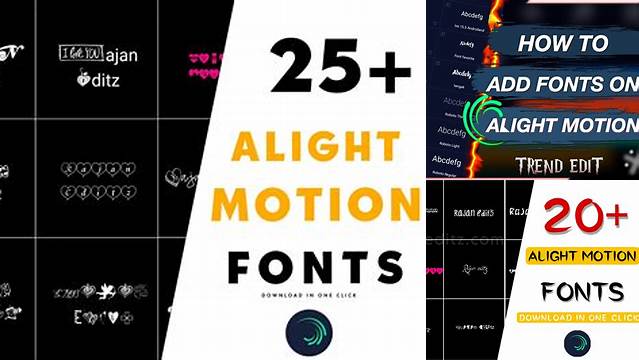
Alight Motion: Master Fonts & Text Editing Like A Pro
Let's dive into the world of Alight Motion, guys! If you're looking to up your video editing game, especially when it comes to text and fonts, you've come to the right place. Alight Motion is a powerhouse for mobile motion graphics, and mastering its font and text editing features is key to creating stunning visuals. So, buckle up, and let’s get started!
1. Understanding the Alight Motion Interface for Text
Alright, first things first. You gotta know your way around the Alight Motion interface, especially the text editing tools. When you open Alight Motion and start a new project, adding text is super simple. Just tap the '+' icon, and select 'Text.' This drops a default text layer onto your composition. Now, the real magic happens when you tap on that text layer. You'll see a bunch of options pop up, like 'Edit Text,' 'Font,' 'Size,' 'Color,' and more. Familiarize yourself with these options. The 'Edit Text' option lets you, well, edit the actual text! The 'Font' option is where you choose your typeface, 'Size' adjusts the text size, and 'Color' changes the text color. Spend some time playing around with these basic settings to get a feel for how they work. Also, pay attention to the 'Move & Transform' options. These allow you to position, rotate, and scale your text layer within your composition. Experiment with different placements and sizes to see what looks best. Don't be afraid to try new things and push the boundaries of your creativity. Understanding this interface is the first step to becoming a text editing pro in Alight Motion!
2. Importing Custom Fonts into Alight Motion
3. Mastering Text Animation in Alight Motion
Now, let's talk about making your text move! Text animation is what brings your words to life in Alight Motion. There are countless ways to animate text, from simple fades and slides to complex character-by-character animations. The key to effective text animation is using keyframes. Keyframes mark specific points in time where you want your text's properties to change. For example, you could set a keyframe at the beginning of your animation with the text off-screen, and then another keyframe a few seconds later with the text in its final position. Alight Motion will then automatically interpolate the animation between those two keyframes, creating a smooth movement. Experiment with different properties like position, rotation, scale, and opacity to create a wide variety of animations. Don't be afraid to get creative and try new things. You can also use easing functions to control the speed and acceleration of your animations. Easing functions can make your animations look more natural and polished. Some popular easing functions include 'Ease In,' 'Ease Out,' and 'Ease In-Out.' Mastering text animation takes practice, but with a little experimentation, you'll be creating stunning animated text effects in no time!
4. Advanced Text Effects: Gradients and Strokes
Ready to take your text to the next level? Let's explore some advanced text effects like gradients and strokes! Gradients add a splash of color and depth to your text, while strokes can help your text stand out from the background. To add a gradient to your text, go to the 'Color & Fill' options in the text editing panel. Instead of choosing a solid color, select the 'Gradient' option. You can then choose from a variety of pre-set gradients or create your own custom gradient. Experiment with different colors and gradient angles to achieve the perfect look. Strokes, also known as outlines, can be added to your text to make it more visible against busy backgrounds. To add a stroke, go to the 'Border & Shadow' options in the text editing panel. Adjust the size and color of the stroke to your liking. You can also choose from different stroke styles, such as solid, dashed, or dotted. Combining gradients and strokes can create some really eye-catching text effects. For example, you could use a subtle gradient with a bold stroke to create a modern and professional look. Or, you could use a vibrant gradient with a thin stroke to create a more playful and energetic look. The possibilities are endless! So, go ahead and experiment with these advanced text effects and see what you can create!
5. Kerning and Leading Adjustments in Alight Motion
Okay, let's talk about the finer details of typography: kerning and leading. Kerning refers to the space between individual letters, while leading refers to the space between lines of text. Adjusting these settings can greatly improve the readability and visual appeal of your text. In Alight Motion, you can adjust kerning and leading in the text editing panel. Look for the 'Spacing' options. Here, you'll find sliders for adjusting both kerning and leading. Kerning is especially important for fonts with unusual letter shapes or spacing. If the letters look too close together or too far apart, adjusting the kerning can help to even things out. Leading is important for multi-line text. If the lines of text are too close together, they can be difficult to read. Increasing the leading can create more space between the lines, making the text more readable. Conversely, if the lines of text are too far apart, decreasing the leading can create a more cohesive look. Experiment with different kerning and leading settings to see what looks best for your particular font and text. Pay attention to the overall balance and readability of the text. Even small adjustments can make a big difference in the overall look and feel of your design.
6. Using Text Masks for Creative Effects
Alright, let's get into some seriously cool stuff: text masks! Text masks allow you to reveal or hide parts of an image or video using text as the shape. This can create some really dynamic and visually interesting effects. To create a text mask in Alight Motion, you'll need two layers: a text layer and an image or video layer. Place the text layer above the image or video layer in the layer stack. Then, select the image or video layer and go to the 'Masking' options. Choose the text layer as the mask. Now, only the parts of the image or video that are within the shape of the text will be visible. You can animate the text layer to create even more interesting effects. For example, you could animate the text moving across the screen, revealing different parts of the image or video as it goes. You can also use different blend modes to create different effects. Experiment with different blend modes like 'Multiply,' 'Screen,' or 'Overlay' to see what looks best. Text masks are a powerful tool for creating unique and visually stunning effects in Alight Motion. So, go ahead and experiment with them and see what you can create!
7. Creating 3D Text Effects in Alight Motion
Whoa, hold on! 3D text in Alight Motion? Yes, it’s possible! Creating 3D text effects can add depth and dimension to your projects, making them look more professional and eye-catching. While Alight Motion doesn't have true 3D capabilities, you can simulate 3D effects using a combination of techniques. One popular technique is to use multiple layers of text, each slightly offset from the others. By changing the color and opacity of each layer, you can create the illusion of depth. Another technique is to use shadows and highlights to create the appearance of three-dimensionality. Add a shadow to your text layer and adjust the blur and offset to create the illusion of depth. You can also add a highlight to the top of your text to make it look like it's catching the light. Experiment with different angles and distances to achieve the perfect 3D effect. Keep in mind that creating convincing 3D text effects takes practice and patience. Don't be afraid to experiment with different techniques and settings until you achieve the desired look. With a little creativity, you can create stunning 3D text effects that will elevate your projects to the next level!
8. Typography Tips for Alight Motion Beginners
Alright, beginners, listen up! Typography is an art, and even in Alight Motion, a few key tips can elevate your projects from amateur to awesome. First, less is often more. Don't overcrowd your screen with too much text. Keep it concise and easy to read. Choose fonts that are appropriate for your project. A playful font might be great for a children's video, but it wouldn't be suitable for a corporate presentation. Pay attention to the hierarchy of your text. Use different font sizes and styles to emphasize important information. Make sure your text is legible. Choose colors that contrast well with the background. Avoid using overly decorative fonts that are difficult to read. Use kerning and leading to fine-tune the spacing of your text. Even small adjustments can make a big difference in readability. Don't be afraid to experiment with different fonts and styles, but always keep readability in mind. Typography is all about communication. Your goal is to convey your message clearly and effectively. By following these simple tips, you can create typography that is both beautiful and functional.
9. Exporting Your Alight Motion Projects with Optimized Text
Okay, you've created your masterpiece in Alight Motion. Now it's time to share it with the world! But before you hit that export button, there are a few things you should keep in mind to ensure that your text looks its best. First, choose the right export settings. If you're exporting for social media, a resolution of 1080p is usually sufficient. If you're exporting for a larger screen, you may want to increase the resolution. Make sure your frame rate is appropriate for your project. 24fps or 30fps are common choices. Consider the file format. MP4 is a widely supported format that is suitable for most purposes. Before exporting, double-check your text for any errors or typos. It's always a good idea to preview your project one last time to make sure everything looks perfect. If you're using custom fonts, make sure they are properly embedded in your project. This will ensure that your text looks the same on other devices, even if they don't have the same fonts installed. By following these simple tips, you can ensure that your Alight Motion projects are exported with optimized text that looks great on any device.
10. Troubleshooting Common Text Issues in Alight Motion
Alright, let's face it: things don't always go smoothly. If you're encountering problems with text in Alight Motion, don't panic! Here are a few common issues and how to fix them. Problem: Text is blurry. Solution: Increase the resolution of your project or use a sharper font. Problem: Text is not displaying correctly. Solution: Make sure your font is properly installed and supported by Alight Motion. Try restarting the app or your device. Problem: Text is overlapping. Solution: Adjust the kerning and leading of your text. Problem: Text is disappearing. Solution: Check the opacity of your text layer and make sure it's not set to zero. Also, make sure your text layer is not masked or hidden. Problem: Text is not animating correctly. Solution: Double-check your keyframes and easing functions. Make sure you're using the correct properties for your animation. If you're still having trouble, consult the Alight Motion documentation or online forums for help. There are plenty of resources available to help you troubleshoot common text issues. With a little patience and persistence, you'll be able to overcome any challenges and create stunning text effects in Alight Motion!
11. Best Fonts for Alight Motion Projects
Choosing the right font is crucial for any design project, including those created in Alight Motion. The best fonts are those that are legible, visually appealing, and appropriate for the overall tone and style of your project. Some popular font choices for Alight Motion include: Roboto: A clean and versatile sans-serif font that is suitable for a wide range of projects. Montserrat: Another popular sans-serif font that is known for its modern and geometric design. Open Sans: A highly legible sans-serif font that is ideal for body text. Lato: A stylish and modern sans-serif font that is perfect for headlines and titles. Poppins: A geometric sans-serif font that is both clean and elegant. In addition to these popular choices, there are countless other fonts that you can use in your Alight Motion projects. The key is to experiment and find fonts that work well together and complement your overall design. Consider the purpose of your text when choosing a font. Is it for a headline, body text, or a logo? Choose a font that is appropriate for its intended use. Don't be afraid to mix and match fonts, but be sure to do so in a way that is visually appealing and easy to read. With a little experimentation, you'll be able to find the perfect fonts for your Alight Motion projects!
12. Font Pairing Strategies for Alight Motion
Font pairing is the art of combining two or more fonts in a way that is visually appealing and harmonious. When done well, font pairing can elevate your designs and make them more engaging and professional. Here are a few strategies for pairing fonts in Alight Motion: Contrast: Choose fonts that are different enough to create visual interest, but similar enough to avoid clashing. For example, you could pair a bold sans-serif font with a delicate script font. Hierarchy: Use different font sizes and styles to create a visual hierarchy. Use a larger, bolder font for headlines and a smaller, more legible font for body text. Complementary: Choose fonts that complement each other in terms of style and tone. For example, you could pair two sans-serif fonts with different weights or widths. Serif and Sans-Serif: A classic combination is pairing a serif font with a sans-serif font. This can create a balanced and sophisticated look. When pairing fonts, it's important to consider the overall tone and style of your project. Choose fonts that are appropriate for your target audience and the message you're trying to convey. Don't be afraid to experiment with different font combinations until you find something that works well. There are many online resources that can help you with font pairing, such as font pairing generators and typography articles. With a little practice, you'll be able to master the art of font pairing and create stunning designs in Alight Motion!
13. Legal Considerations for Using Fonts in Alight Motion
Before you start using fonts in your Alight Motion projects, it's important to understand the legal considerations. Fonts are intellectual property and are protected by copyright law. This means that you need to have a license to use a font legally. There are different types of font licenses, each with its own terms and conditions. Some fonts are free for personal use, but require a commercial license for business purposes. Other fonts are completely free for any use, while others require a paid license for all uses. It's important to read the license agreement carefully before using a font to make sure you're complying with the terms. If you're not sure whether you have the right to use a font, it's always best to err on the side of caution and obtain a license. You can purchase font licenses from various online marketplaces. Using fonts without a proper license can result in legal consequences, such as fines and lawsuits. So, be sure to do your research and make sure you have the right to use the fonts in your Alight Motion projects. Protecting intellectual property is important, and respecting font licenses is a key part of that!
14. Alight Motion Text Templates: Saving Time and Effort
Alight Motion text templates can be a huge time-saver, especially if you find yourself using the same text effects and animations repeatedly. Instead of recreating the same thing over and over, you can create a template and reuse it in multiple projects. To create a text template, simply create the text effect or animation you want to save. Then, select all of the layers involved and group them together. Next, tap on the group and choose the 'Save as Template' option. Give your template a name and save it to your library. Now, you can access your template from the 'Templates' tab in Alight Motion. Simply tap on the template to add it to your current project. You can then customize the text and other properties to fit your needs. Using text templates can significantly speed up your workflow and help you create more consistent designs. You can also share your templates with other Alight Motion users. There are many online communities where users share their templates for free or for a small fee. Exploring these communities can give you access to a wide range of pre-made text effects and animations that you can use in your own projects. Text templates are a valuable tool for any Alight Motion user, so be sure to take advantage of them!
15. Responsive Text Design in Alight Motion
Creating responsive text designs in Alight Motion is crucial for ensuring that your text looks good on all devices and screen sizes. Responsive design means that your text will automatically adjust its size, position, and layout to fit the available space. To create responsive text in Alight Motion, you can use a combination of techniques, such as: Percentage-based sizing: Instead of using fixed pixel values for your text size, use percentages. This will allow your text to scale proportionally to the screen size. Auto-wrapping: Enable the auto-wrapping feature to ensure that your text wraps to the next line when it reaches the edge of the screen. Constraints: Use constraints to position your text relative to other elements on the screen. This will help to maintain the desired layout on different devices. Testing: Always test your designs on different devices and screen sizes to ensure that your text looks good and is easy to read. Responsive text design is an essential skill for any Alight Motion designer. By following these techniques, you can create text that looks great on any device and provides a consistent user experience.
16. Advanced Techniques for Text Effects
Ready to go beyond the basics? Let's explore some advanced techniques for creating truly stunning text effects in Alight Motion. These techniques require a bit more skill and creativity, but the results are well worth the effort. Using Multiple Layers: Combine multiple text layers with different fonts, colors, and effects to create complex and layered designs. Masking: Use masks to reveal or hide portions of your text, creating interesting visual effects. Blending Modes: Experiment with different blending modes to blend your text with the background or other elements in your design. Expressions: Use expressions to create dynamic and animated text effects that respond to user input or other variables. Particles: Incorporate particle effects to add sparkle, movement, and visual interest to your text. These advanced techniques can take your text effects to the next level and help you create truly unique and memorable designs. Don't be afraid to experiment and push the boundaries of what's possible in Alight Motion.
17. Editing Text for Social Media
When editing text for social media in Alight Motion, there are a few key considerations to keep in mind. Social media platforms have different aspect ratios and display sizes, so it's important to optimize your text for each platform. Keep it short and sweet: Social media users have short attention spans, so keep your text concise and to the point. Use engaging visuals: Combine your text with eye-catching images or videos to capture attention. Choose readable fonts: Select fonts that are easy to read on small screens. Use contrasting colors: Make sure your text stands out against the background. Add a call to action: Encourage viewers to like, comment, or share your content. Optimize for mobile: Most social media users access content on their mobile devices, so make sure your text looks good on mobile screens. By following these tips, you can create text that is optimized for social media and helps you achieve your marketing goals.
18. Utilizing Text Styles in Alight Motion
Text styles are a powerful tool in Alight Motion that allows you to save and reuse text formatting settings across multiple projects. This can save you a lot of time and effort, especially if you find yourself using the same text styles repeatedly. To create a text style, simply format a text layer with the desired font, size, color, and other settings. Then, select the text layer and choose the 'Create Text Style' option. Give your text style a name and save it to your library. Now, you can apply your text style to any other text layer in Alight Motion. Simply select the text layer and choose the 'Apply Text Style' option. Select the desired text style from your library, and the text layer will be automatically formatted with the saved settings. You can also modify existing text styles to update the formatting of all text layers that use that style. Text styles are a great way to maintain consistency in your designs and speed up your workflow.
19. Integrating Text with Video Content
Integrating text with video content in Alight Motion requires careful planning and execution. The goal is to create a seamless and visually appealing combination of text and video that enhances the overall message. Choose the right fonts: Select fonts that complement the style and tone of your video. Use appropriate colors: Choose colors that contrast well with the video background and are easy to read. Animate the text: Use animation to draw attention to the text and make it more engaging. Time the text: Synchronize the text with the video content to create a cohesive and impactful message. Keep it simple: Avoid overcrowding the screen with too much text. Consider the aspect ratio: Make sure your text is properly formatted for the video's aspect ratio. By following these guidelines, you can effectively integrate text with video content and create compelling and engaging videos in Alight Motion.
20. Text and Branding: Maintaining Consistency
When using text in Alight Motion for branding purposes, it's crucial to maintain consistency across all your projects. This helps to create a recognizable brand identity and reinforces your brand message. Use consistent fonts: Choose a set of fonts that represent your brand and use them consistently in all your designs. Use consistent colors: Define a color palette for your brand and use it consistently in your text and other visual elements. Use consistent text styles: Create text styles for your brand's headlines, body text, and other text elements, and use them consistently in all your projects. Maintain a consistent tone: Use a consistent tone of voice in your text to communicate your brand's personality. Follow your brand guidelines: Adhere to your brand's style guide when using text in Alight Motion. By maintaining consistency in your text and other branding elements, you can create a strong and recognizable brand identity that resonates with your audience.
21. Text Alignment Techniques in Alight Motion
Text alignment is a fundamental aspect of typography that can significantly impact the readability and visual appeal of your designs. Alight Motion offers several text alignment options, including left, right, center, and justified. Left alignment: Aligns the text to the left edge of the text box. This is a common alignment option that is easy to read. Right alignment: Aligns the text to the right edge of the text box. This alignment option can be used for captions or sidebars. Center alignment: Centers the text within the text box. This alignment option is often used for headlines or titles. Justified alignment: Aligns the text to both the left and right edges of the text box, creating a clean and symmetrical look. This alignment option is often used for body text in books or magazines. When choosing a text alignment option, consider the purpose of the text and the overall design of your project. Use consistent alignment throughout your design to create a cohesive and professional look.
22. The Role of Text in Motion Graphics
Text plays a crucial role in motion graphics, serving as a powerful tool for communication, storytelling, and visual impact. In motion graphics, text is not just a static element, but a dynamic component that can be animated, transformed, and integrated with other visual elements to create engaging and memorable experiences. Communicate information: Text can be used to convey important information, such as titles, captions, and annotations. Tell a story: Text can be used to narrate a story or provide context for the visual elements. Create visual impact: Text can be used to create visual interest and draw attention to key elements in the design. Enhance the overall message: Text can be used to reinforce the overall message and create a more cohesive and impactful design. When using text in motion graphics, it's important to consider the font, color, size, animation, and timing to create a visually appealing and effective design. Text should be used strategically to enhance the overall message and create a memorable experience for the viewer.
23. Animating Text with Masks and Shapes
Animating text with masks and shapes in Alight Motion is a creative technique that allows you to reveal or hide portions of your text, creating dynamic and visually interesting effects. Masking: Use masks to reveal portions of your text, creating a sense of mystery or intrigue. Shape layers: Use shape layers to animate the text, creating dynamic and eye-catching effects. Combine masks and shapes: Combine masks and shapes to create complex and layered text animations. To animate text with masks and shapes, you'll need to create a text layer and a mask or shape layer. Then, you can use keyframes to animate the position, scale, rotation, and other properties of the mask or shape layer. Experiment with different masking and shaping techniques to create a variety of unique and engaging text animations. This technique is a great way to add visual interest and create a more dynamic and engaging experience for the viewer.
24. Creating Kinetic Typography in Alight Motion
Kinetic typography is the art of animating text in a way that expresses the meaning of the words. It involves using animation, motion, and visual effects to bring text to life and create a more engaging and impactful experience for the viewer. To create kinetic typography in Alight Motion, you'll need to carefully consider the meaning of the words and how you can visually represent them through animation. Choose the right fonts: Select fonts that complement the meaning of the words. Use appropriate colors: Choose colors that evoke the desired emotions. Animate the text: Use animation to emphasize key words or phrases. Time the text: Synchronize the text with the audio or visual elements. Keep it simple: Avoid over-complicating the animation. Kinetic typography is a powerful tool for communication and storytelling. By carefully considering the meaning of the words and using animation to bring them to life, you can create a more engaging and memorable experience for the viewer.
25. Text Effects for Intros and Outros
Text effects are commonly used in intros and outros to create a memorable and impactful opening or closing for your videos. These effects can range from simple fades and slides to complex 3D animations. Fades and slides: Simple and elegant effects that are easy to create. Zoom effects: Create a sense of depth and dimension. Rotation effects: Add visual interest and excitement. 3D animations: Create a stunning and professional look. Particle effects: Add sparkle and visual interest. When creating text effects for intros and outros, it's important to consider the overall tone and style of your video. Choose effects that complement the video's message and create a cohesive and professional look. Text effects can be a powerful tool for creating a memorable and impactful opening or closing for your videos.
26. Tips for Legible Text Overlays
Creating legible text overlays in Alight Motion is essential for ensuring that your audience can easily read and understand your message. Illegible text can be frustrating for viewers and can detract from the overall quality of your video. Choose readable fonts: Select fonts that are easy to read on small screens. Use contrasting colors: Make sure your text stands out against the background. Add a background: Add a solid or semi-transparent background behind the text to improve readability. Use a stroke: Add a stroke or outline to the text to make it more visible. Adjust the text size: Make sure the text is large enough to be easily read. Avoid overcrowding the screen: Leave enough space around the text to make it easier to read. By following these tips, you can create legible text overlays that enhance the overall quality of your videos.
27. Working with Variable Fonts
Variable fonts are a new type of font that allows you to adjust various parameters, such as weight, width, and slant, using sliders or other controls. This gives you more flexibility and control over your typography and allows you to create a wider range of styles from a single font file. Alight Motion does not currently fully support variable fonts natively. However, there are workarounds that can allow you to leverage the benefits of variable fonts in your projects. You can pre-render text variations in another program that does support variable fonts, and then import those as images or videos into Alight Motion. While this method requires extra steps, it allows you to incorporate the unique stylistic options offered by variable fonts. As Alight Motion evolves, native support for variable fonts is a highly anticipated feature that would greatly enhance typographic possibilities within the app.
28. Using Plugins for Advanced Text Effects
While Alight Motion is a powerful tool in itself, using plugins can significantly expand its capabilities, especially when it comes to creating advanced text effects. Plugins are third-party add-ons that provide additional features and tools that are not available in the base application. Unfortunately, Alight Motion doesn't fully support plugins like desktop video editing software. However, there are a few ways to mimic some plugin-like effects. For instance, you can use pre-made animations or templates that resemble plugin effects. Another method involves creating complex effects manually within Alight Motion, layering different effects and animations to achieve a plugin-style look. While these workarounds require more time and effort, they can help you achieve some of the advanced text effects that would typically require plugins in other software. Keeping an eye on community forums and tutorials can provide insights into the latest techniques and workarounds for advanced text effects in Alight Motion.
29. Accessibility Considerations for Text
Accessibility is a crucial aspect of design that ensures your content is usable by everyone, including people with disabilities. When using text in Alight Motion, there are several accessibility considerations to keep in mind. Font size: Use a font size that is large enough to be easily read by people with visual impairments. Contrast: Ensure that there is sufficient contrast between the text and the background. Font style: Choose fonts that are easy to read and avoid overly decorative fonts. Text alignment: Use left alignment for most text, as it is the easiest to read for people with dyslexia. Alternative text: Provide alternative text for images that contain text, so that screen readers can convey the information to people with visual impairments. Avoid flashing text: Flashing text can trigger seizures in people with photosensitive epilepsy. By following these accessibility guidelines, you can create text that is usable by everyone and ensure that your content is inclusive.
30. Future Trends in Text and Typography
The world of text and typography is constantly evolving, with new trends and technologies emerging all the time. Staying up-to-date with these trends can help you create more innovative and engaging designs. Some future trends in text and typography include: Variable fonts: Variable fonts are becoming increasingly popular, as they offer more flexibility and control over typography. AI-powered typography: Artificial intelligence is being used to generate fonts, optimize kerning, and automate other typographic tasks. 3D typography: 3D typography is becoming more common, as it allows designers to create more immersive and visually stunning designs. Animated typography: Animated typography is being used to create more dynamic and engaging experiences. Interactive typography: Interactive typography allows users to interact with the text, creating a more personalized and engaging experience. By staying informed about these future trends, you can position yourself at the forefront of the design industry and create text that is both innovative and effective. So keep experimenting, keep learning, and keep pushing the boundaries of what's possible with text and typography in Alight Motion!